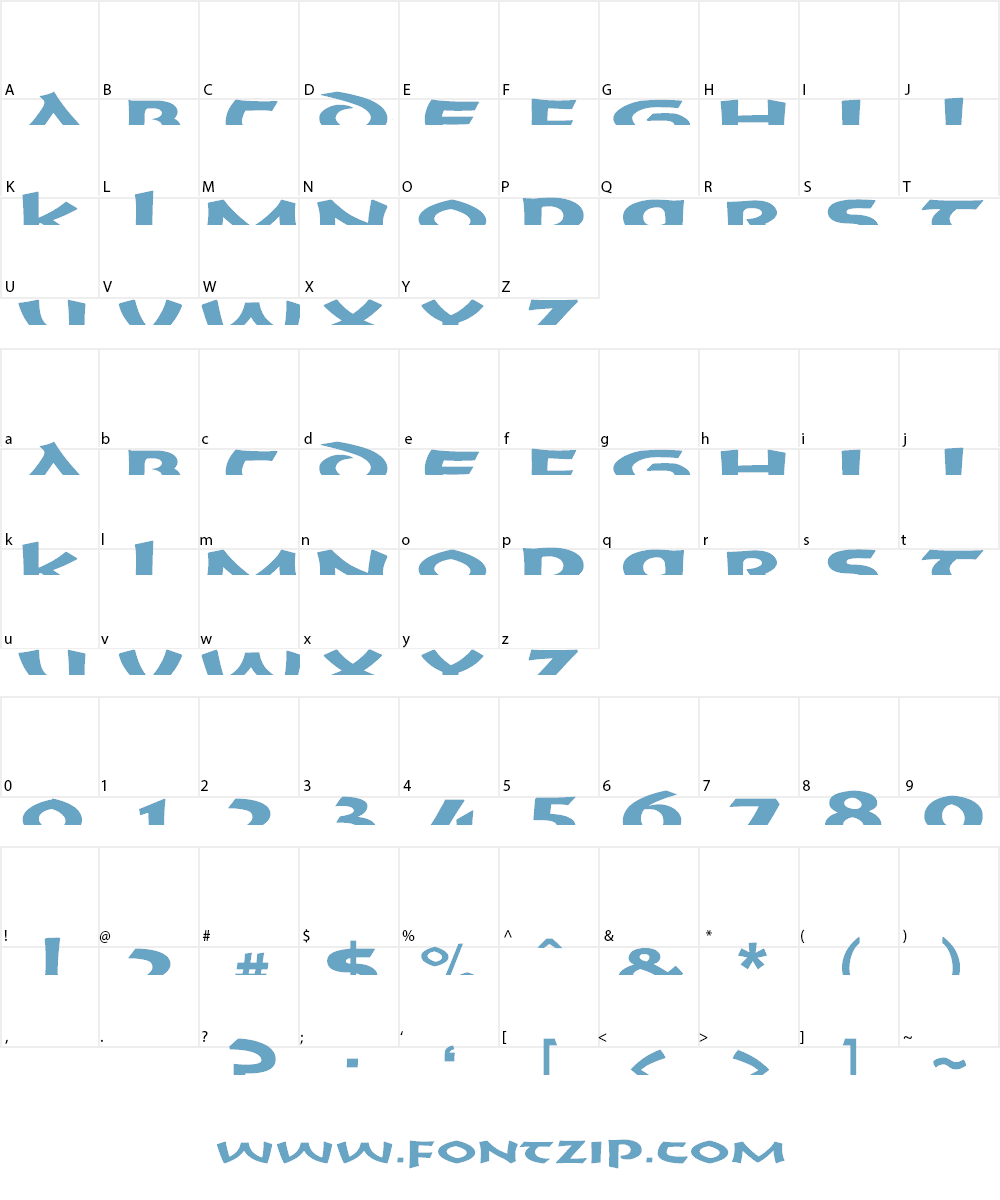
Original source drawn on the original drawing of the opening of the film conan the barbarian of 1982. bonus: a light version of the source, to be used as a complement and in longer texts. Excellent readability.